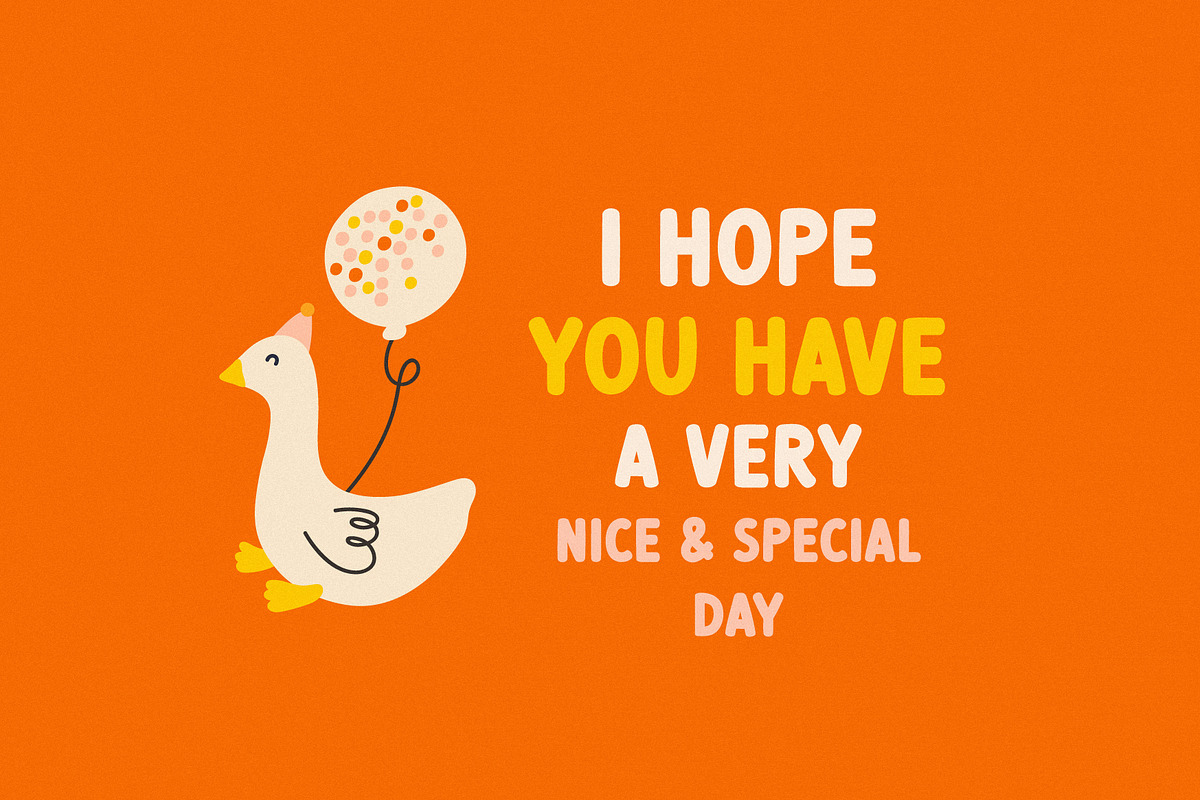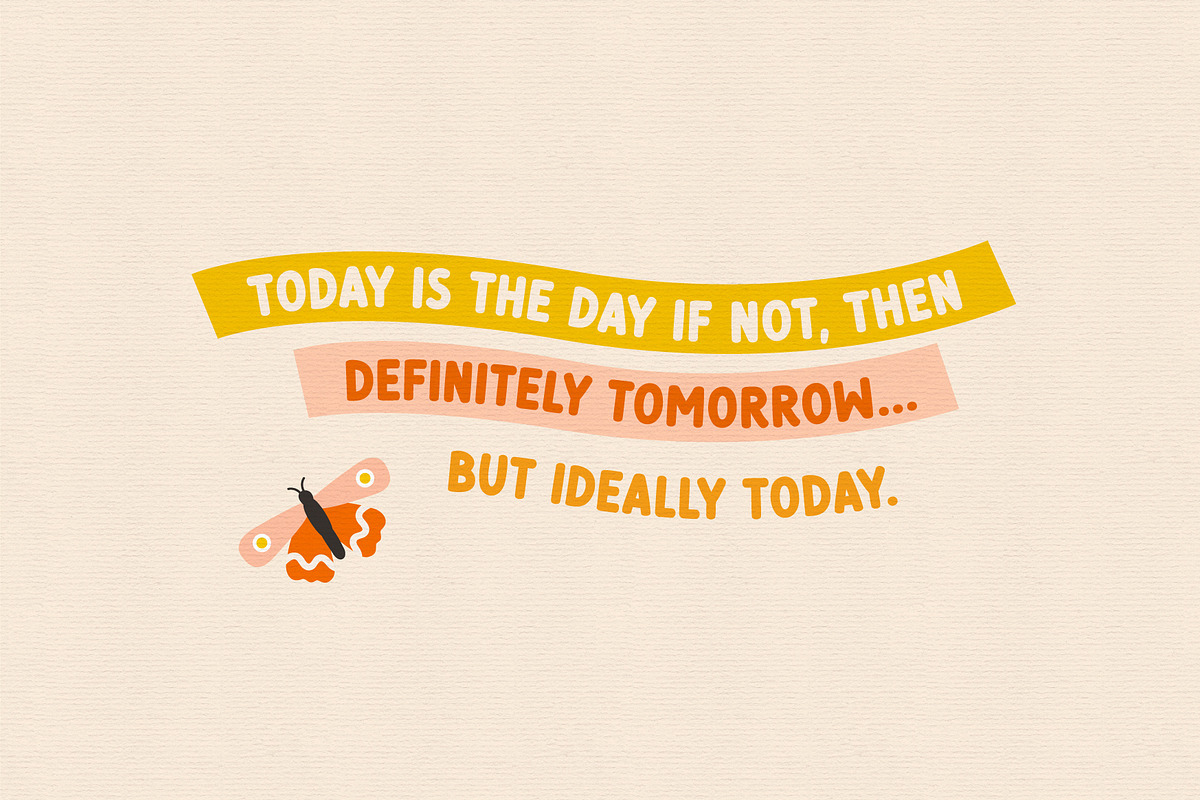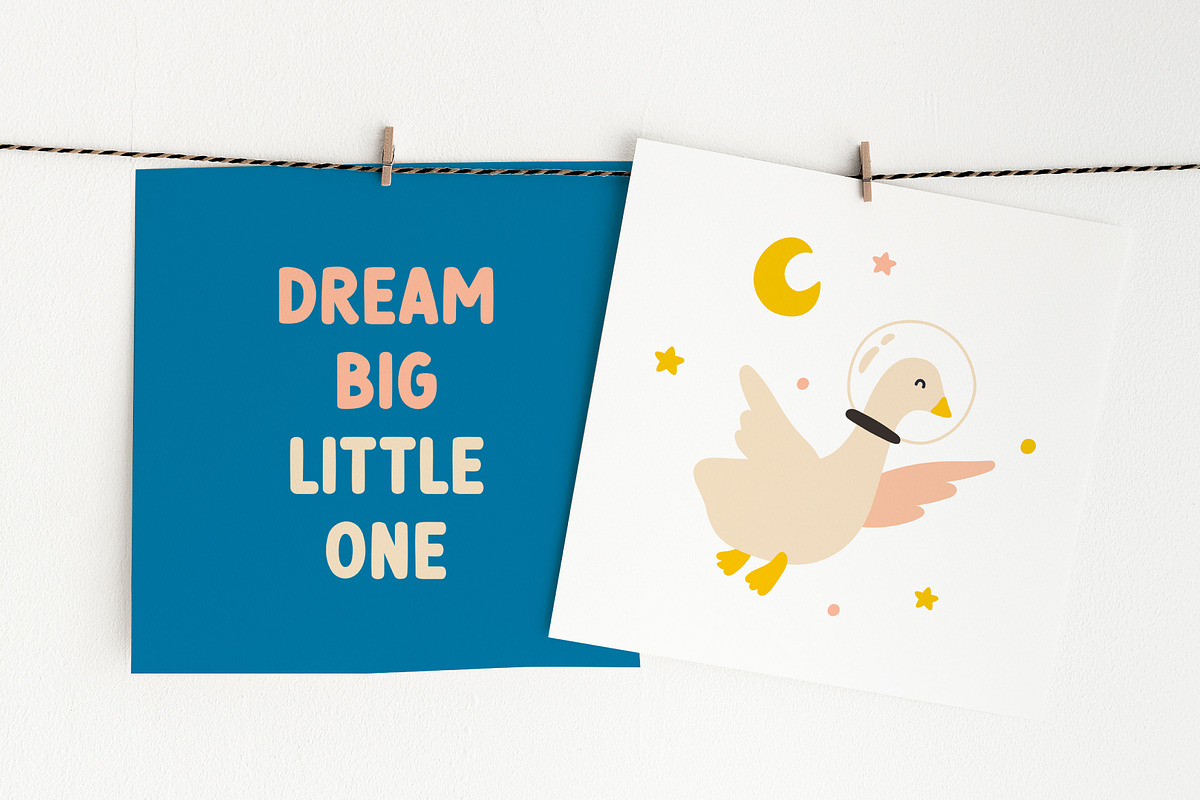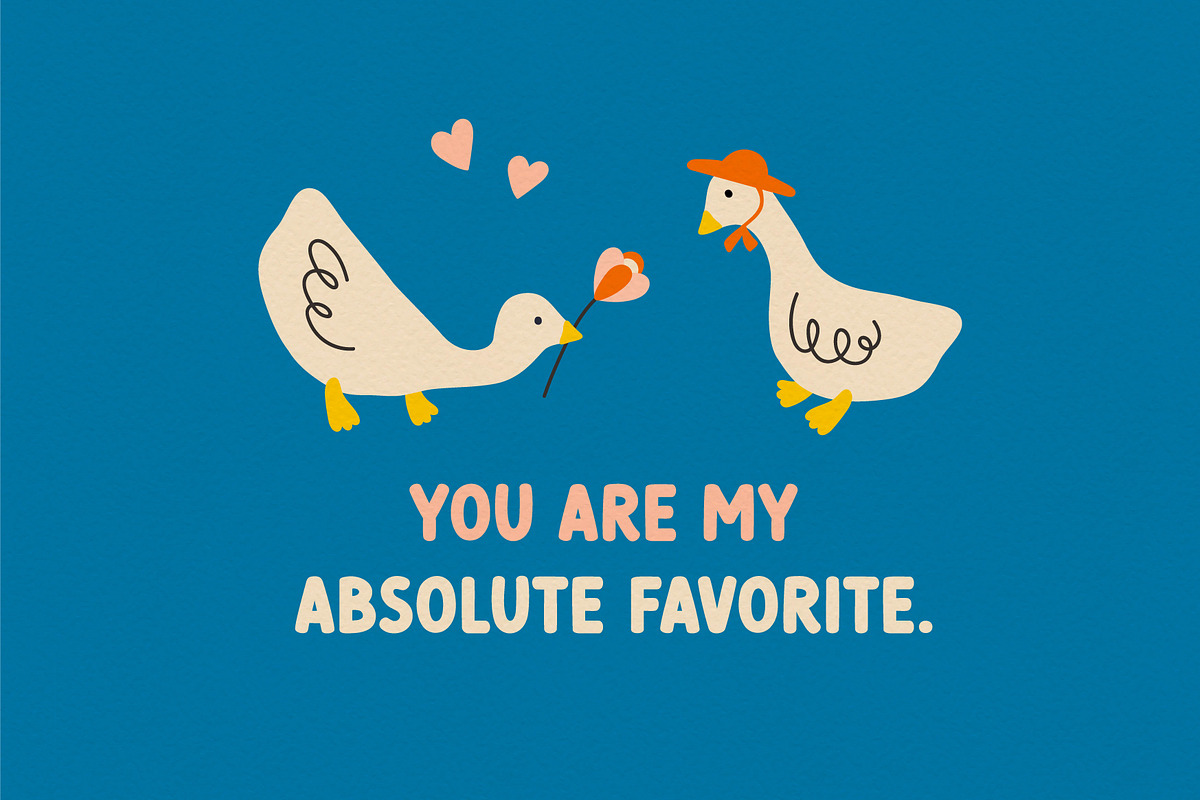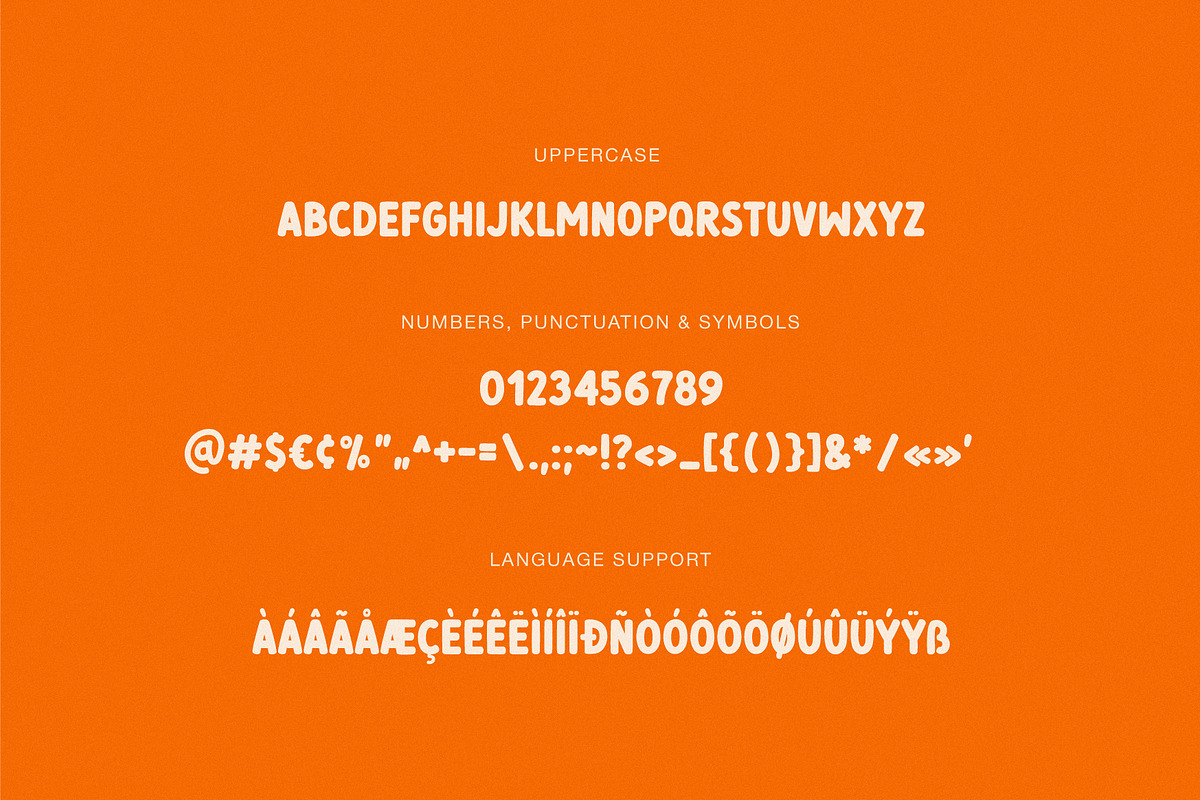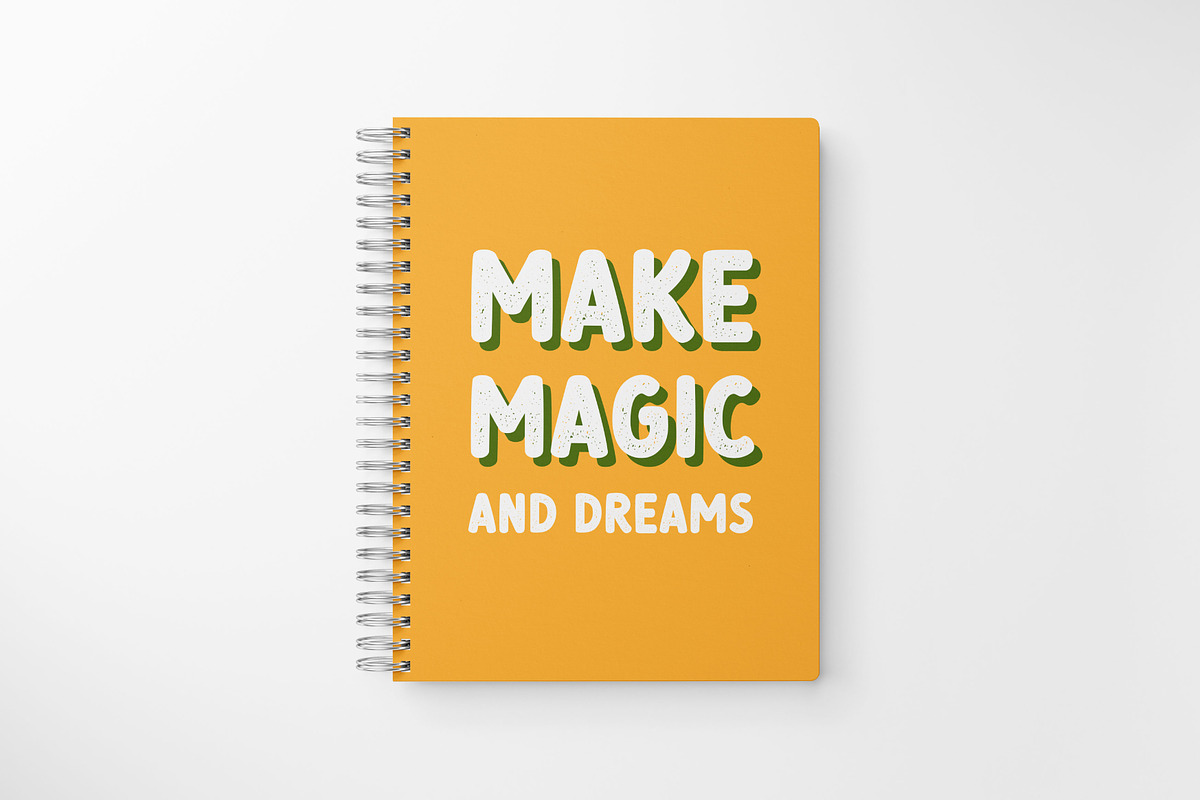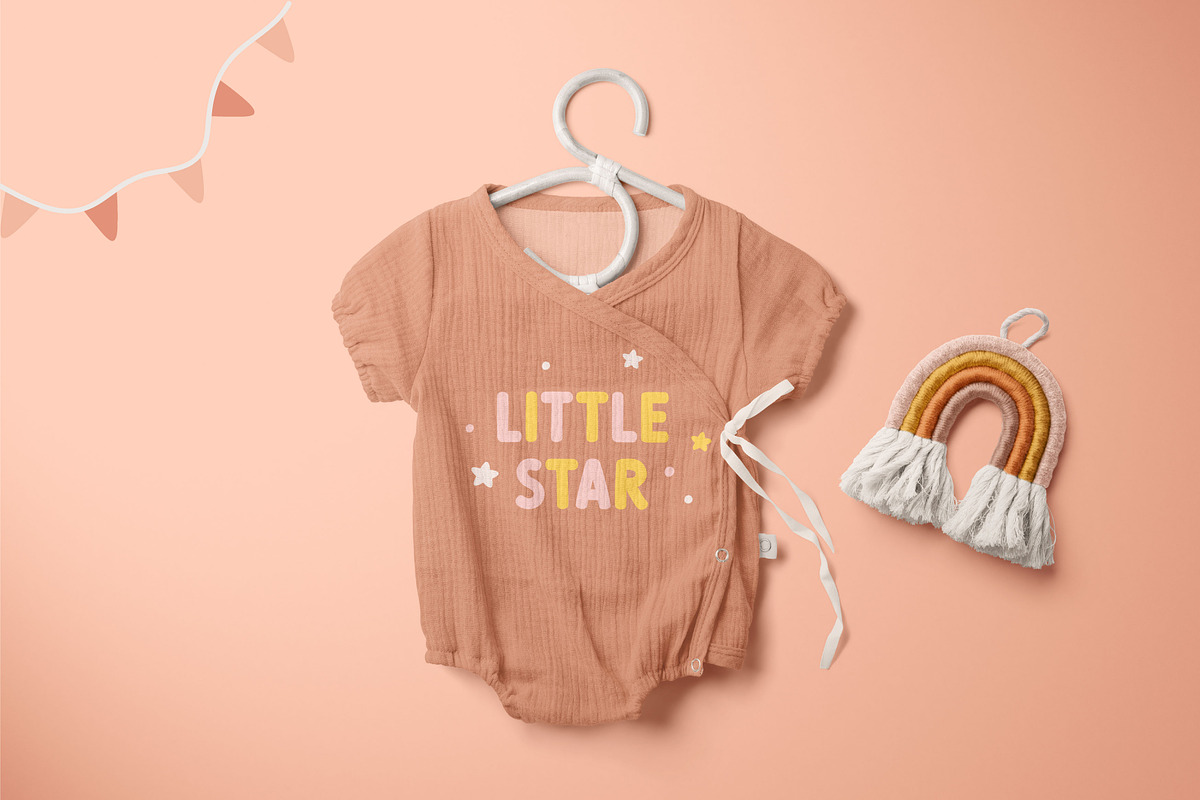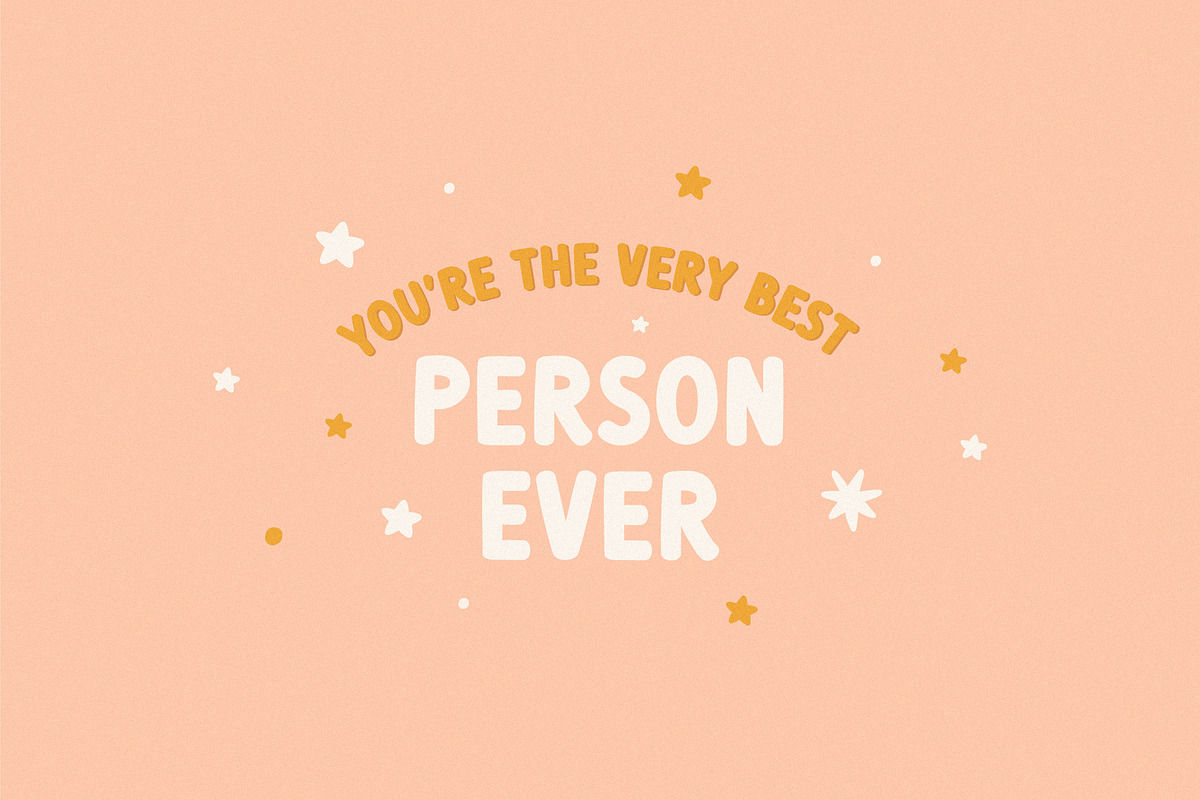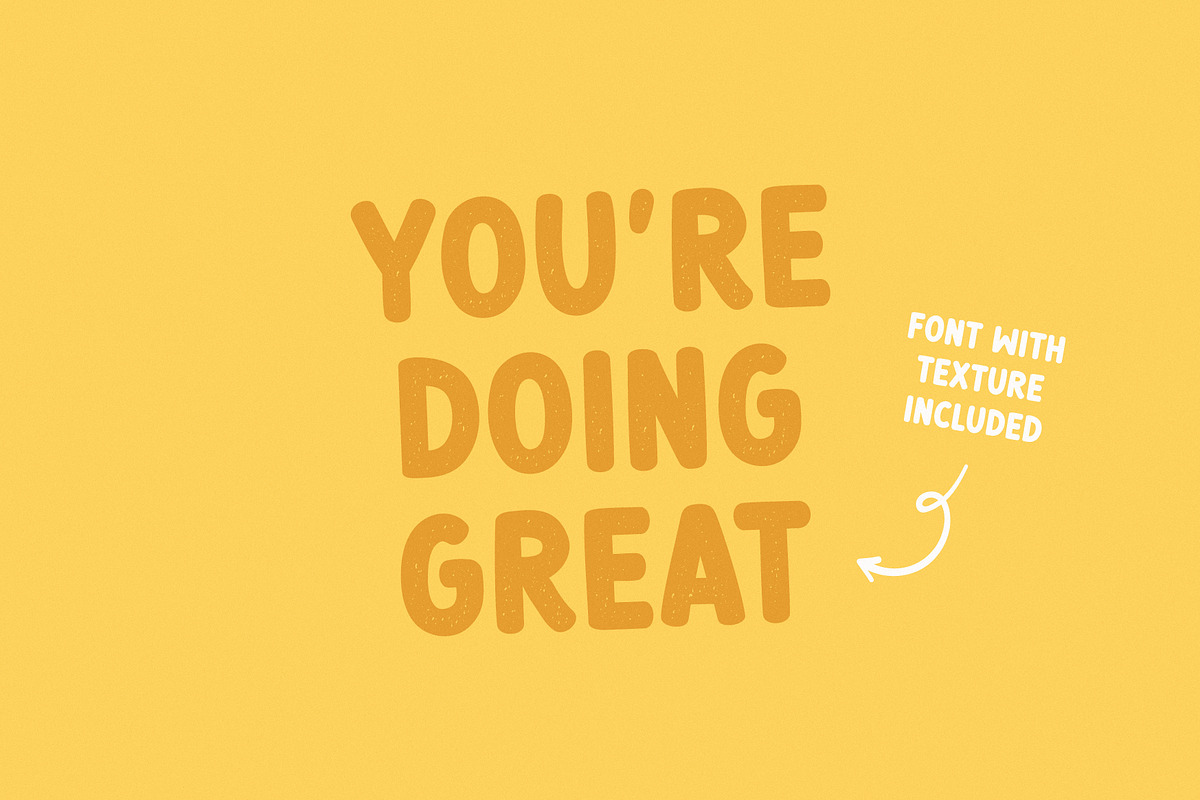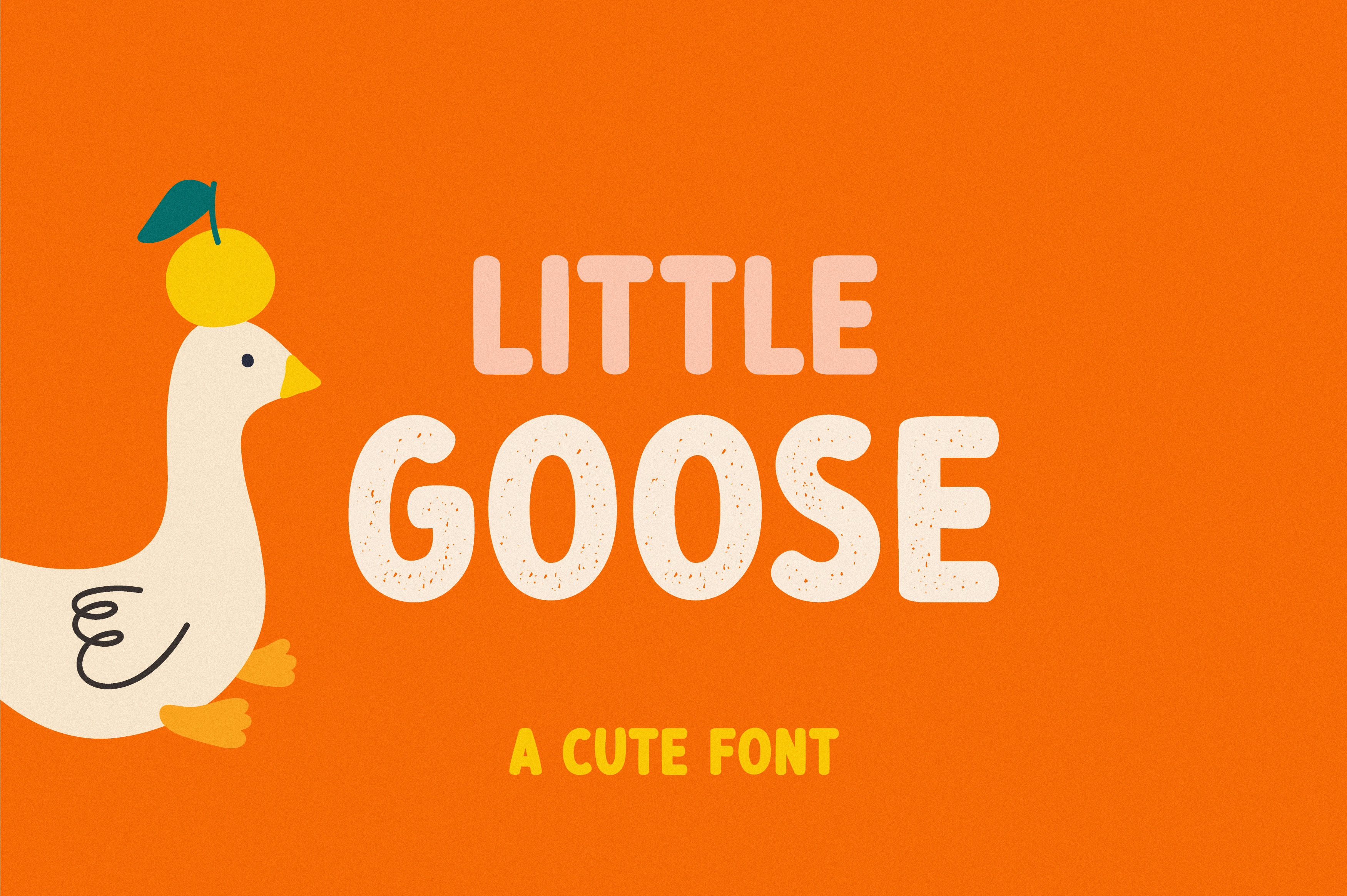
Little goose | Cute font
Use for logos, quotes, invitations, greeting cards, journals, posters, clothing and more. This font will make your design looks great and fun!